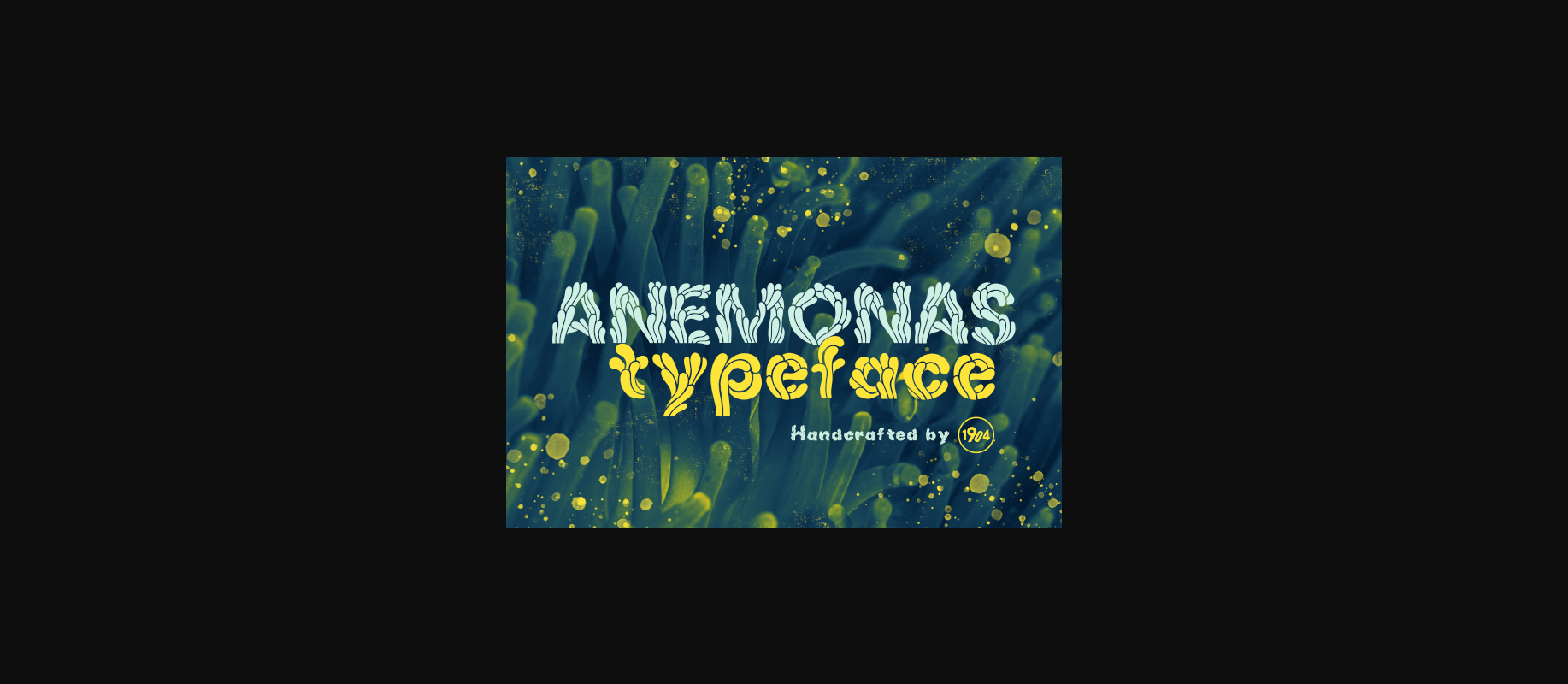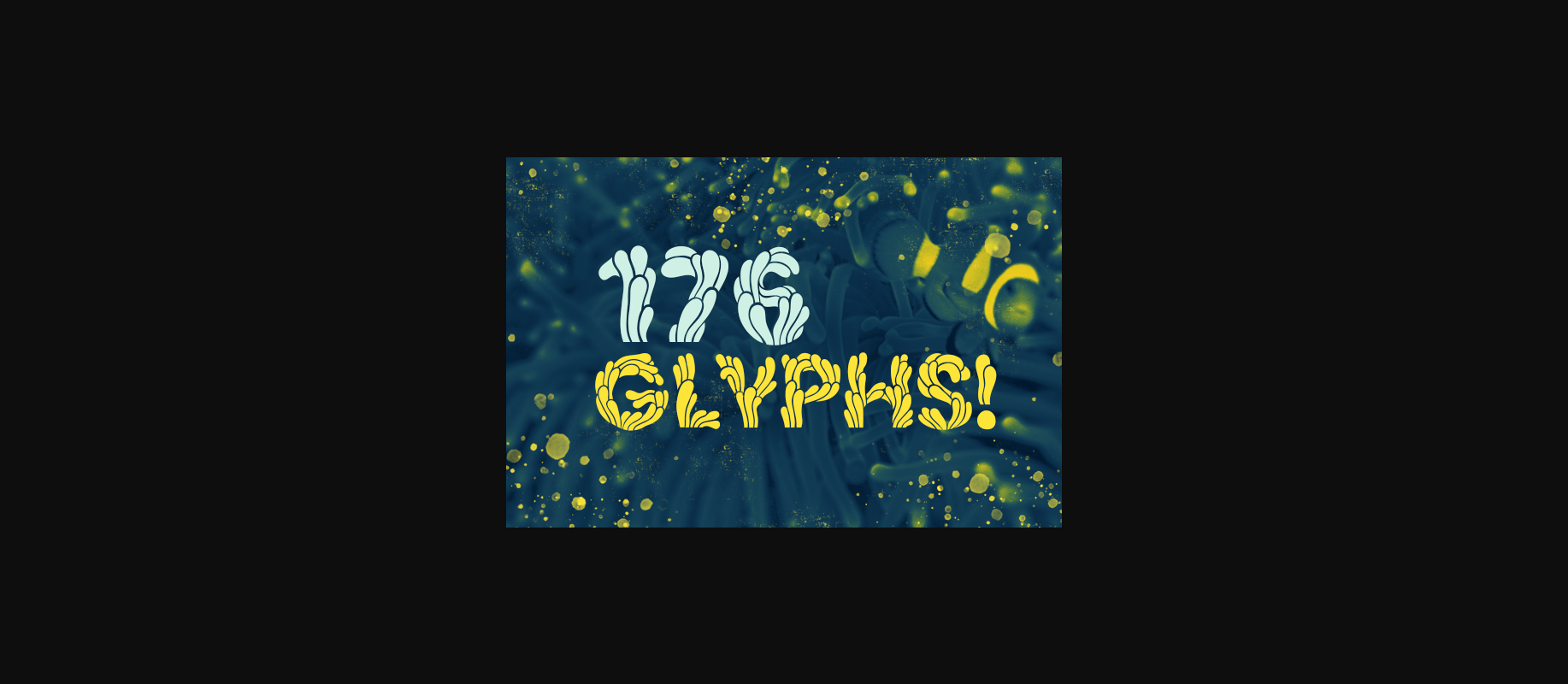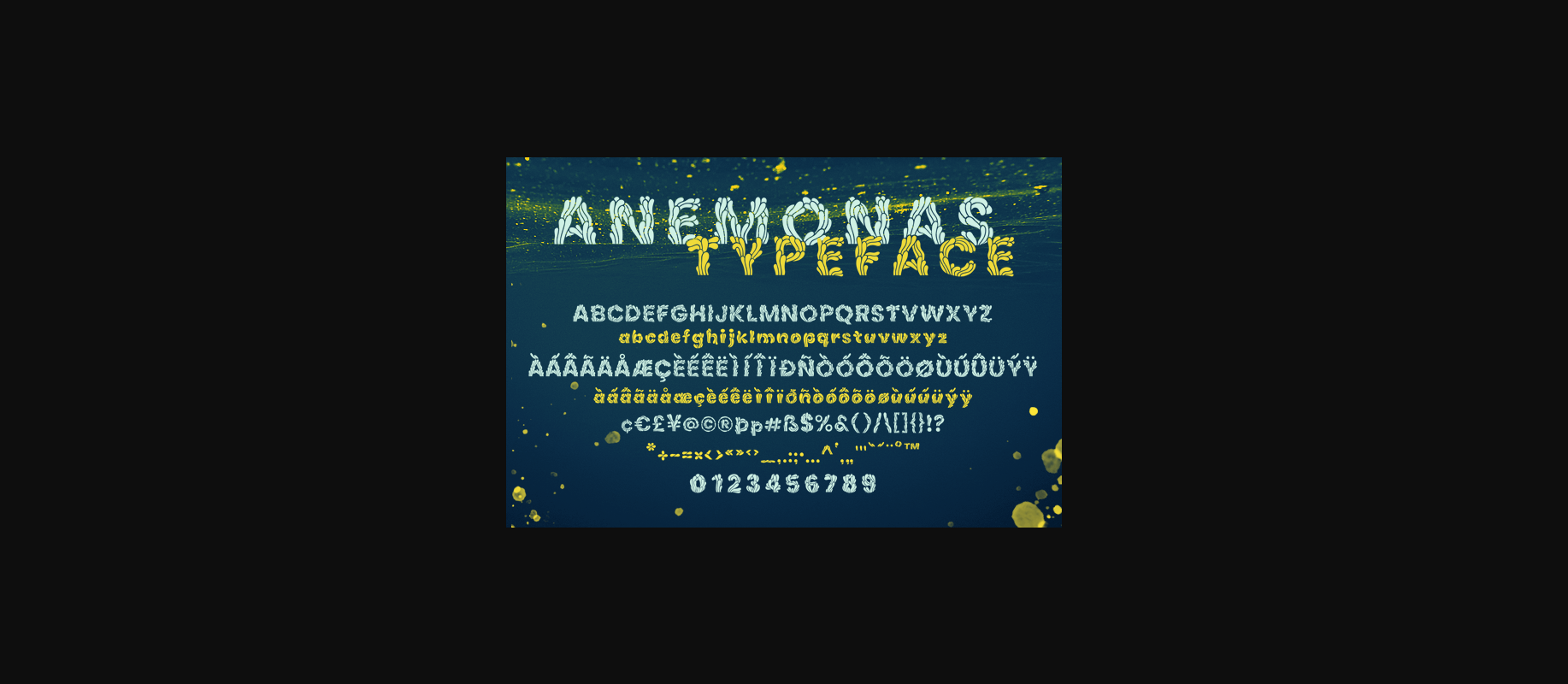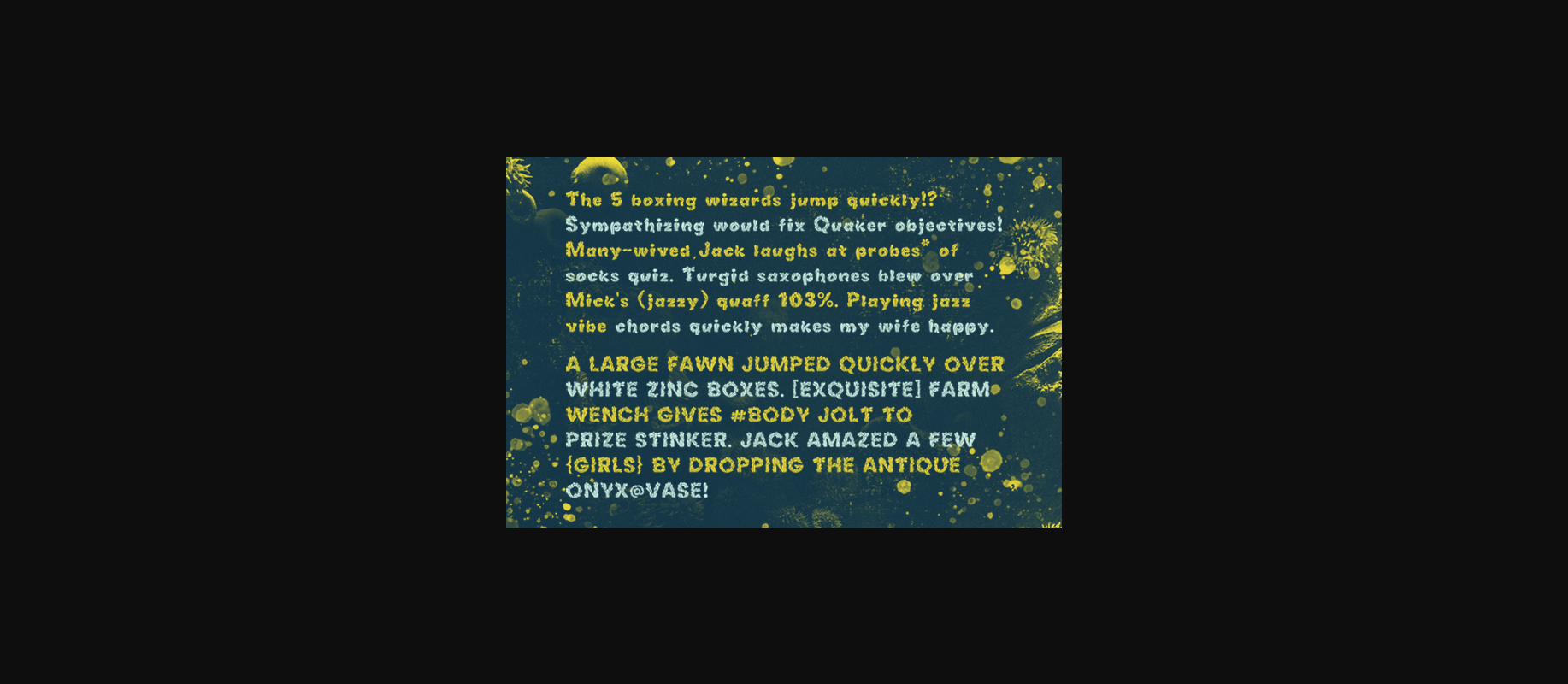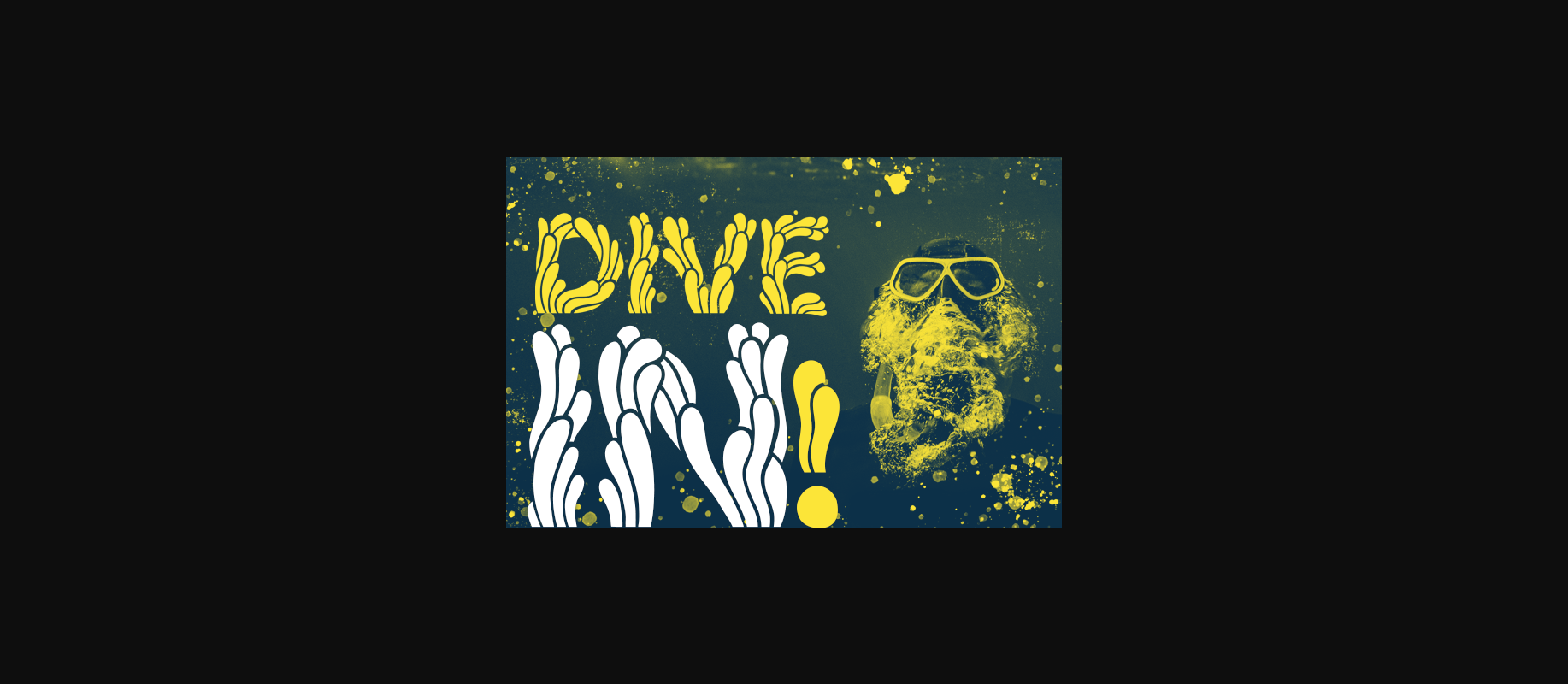
HomeDecorative FontsAnemonas Font Decorative Fonts Anemonas Font FacebookXPinterestWhatsApp 1 of 8 ... Anemonas Font Poster 2... Anemonas Font Poster 3... Anemonas Font Poster 4... Anemonas Font Poster 5... Anemonas Font Poster 6... Anemonas Font Poster 7... Anemonas Font Poster 8... About Anemonas Font Anemonas is an incredibly unique and interesting decorative font. This original look will appeal to a wide range of crafty ideas, from letterheads and titles, to stationery. DOWNLOAD NOW People also explored Muslihaty Font Coffee Break Font Ribbon Candy Font Beautiful Font Summer Splendor Font Beverley Font Hore Christmas Font Soulmate Valentine Font Double Line Font 366 0 TagsAnemonas Font Previous articleSnow Land FontNext articleGnome Font LEAVE A REPLY Cancel reply Comment: Please enter your comment! Name:* Please enter your name here Email:* You have entered an incorrect email address! Please enter your email address here Website: Save my name, email, and website in this browser for the next time I comment. Personal Use Free Amrina Personal Use Free Read more about this font Kitsor Rauttie Personal Use Free Read more about this font Rumaniaya Personal Use Free Read more about this font Special Day Personal Use Free Read more about this font BLOG Free vs Paid Fonts: Why Investing in Premium Fonts Is Worth It Free vs Paid Fonts: Why Premium Fonts Are Worth It in 2025 The debate of free vs paid fonts continues in the design world. While... How to Install and Use Fonts on Windows, macOS, and Web Projects Fonts That Capture the Spirit of New York City To increase your work productivity, choose the most readable fonts.